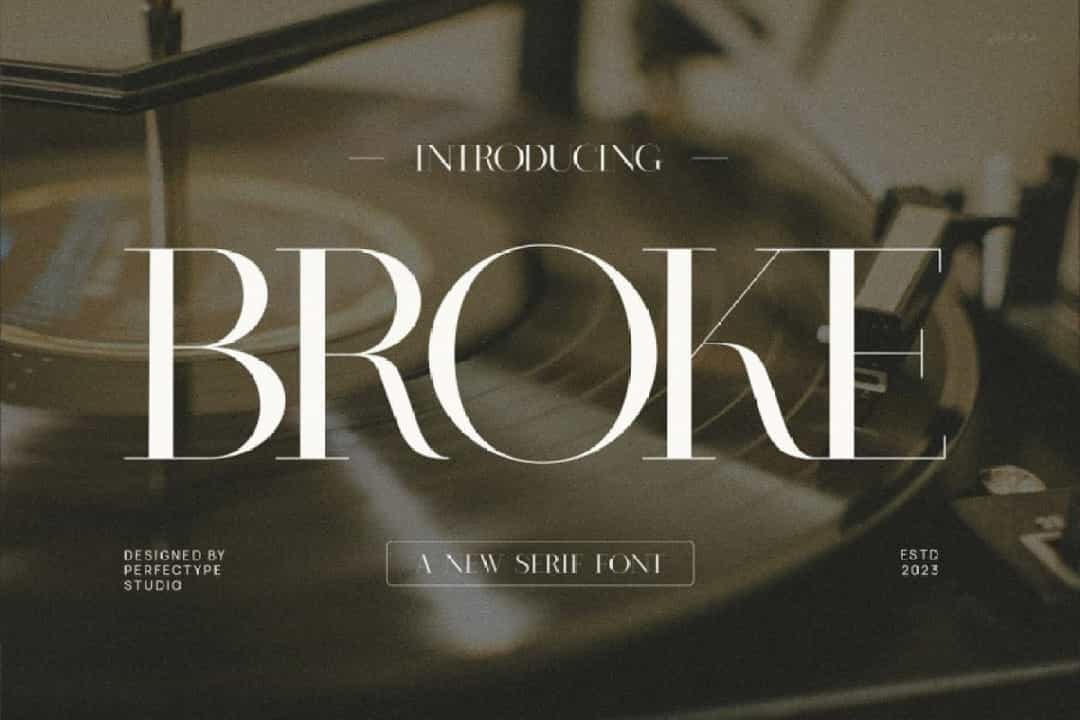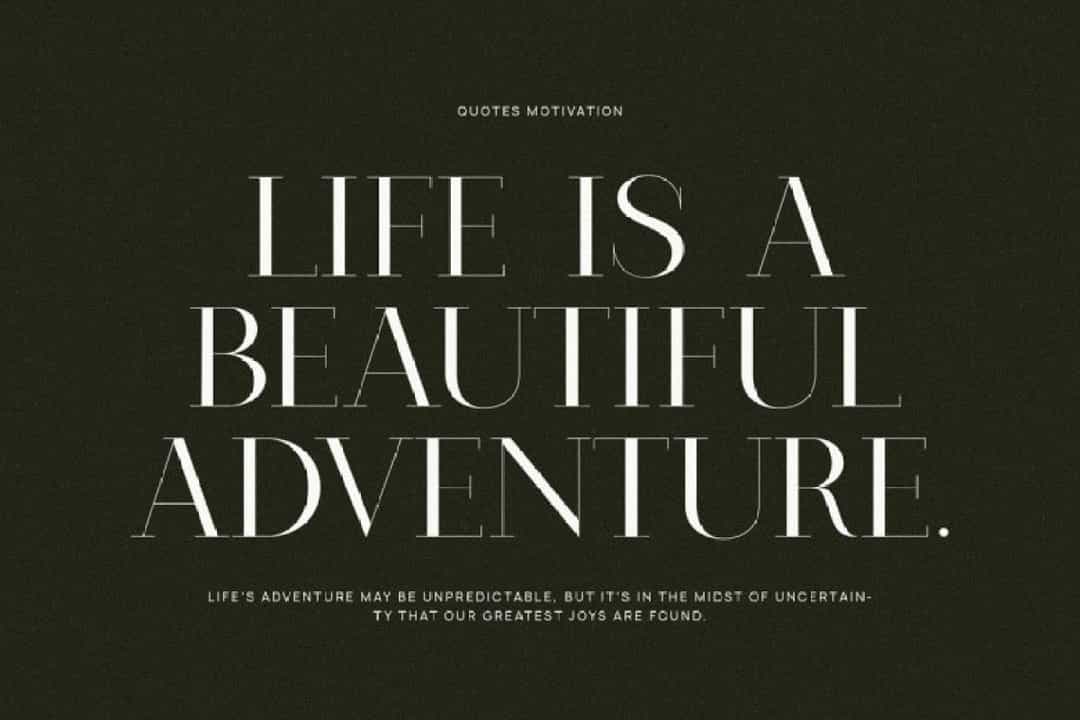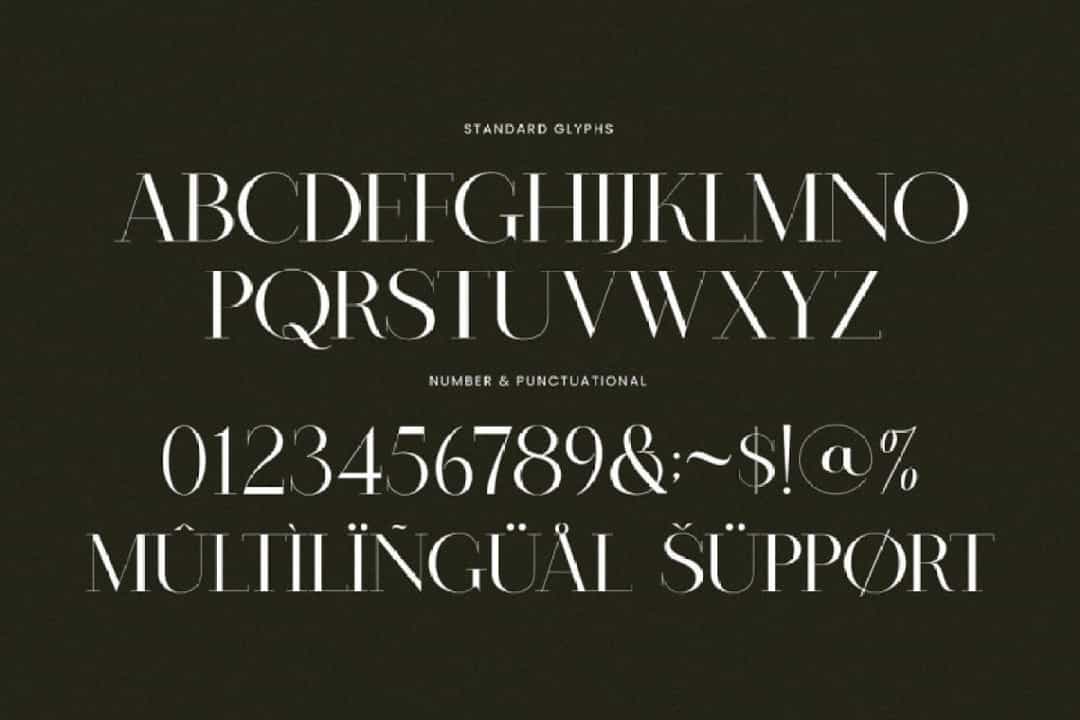
Broke is a sophisticated serif typeface featuring an elegant and contemporary style, ideal for various projects including branding projects, logo design and wedding invitations as well as social media ads and posts, packaging designs labels and watermarks. Additionally, this font makes an impactful statement in invitations stationery or any design created with accessibility in mind.